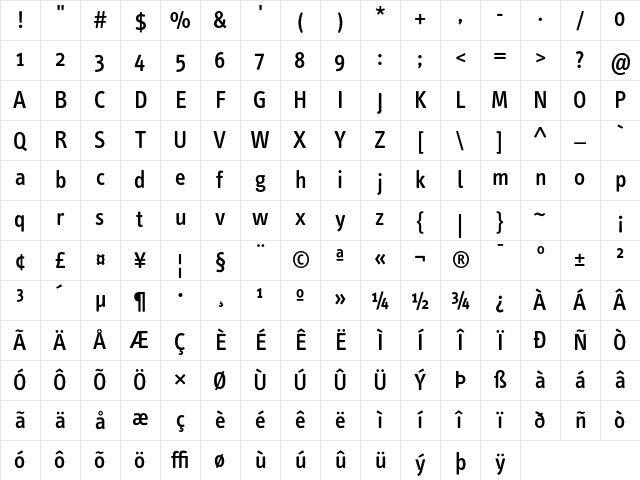
InfoText Medium
Complete InfoText Medium glyph index. Displaying only characters natively supported by InfoText Medium font.
Design Context for InfoText
InfoText is a composed and adaptable typeface that performs quietly and consistently across a wide range of design contexts.